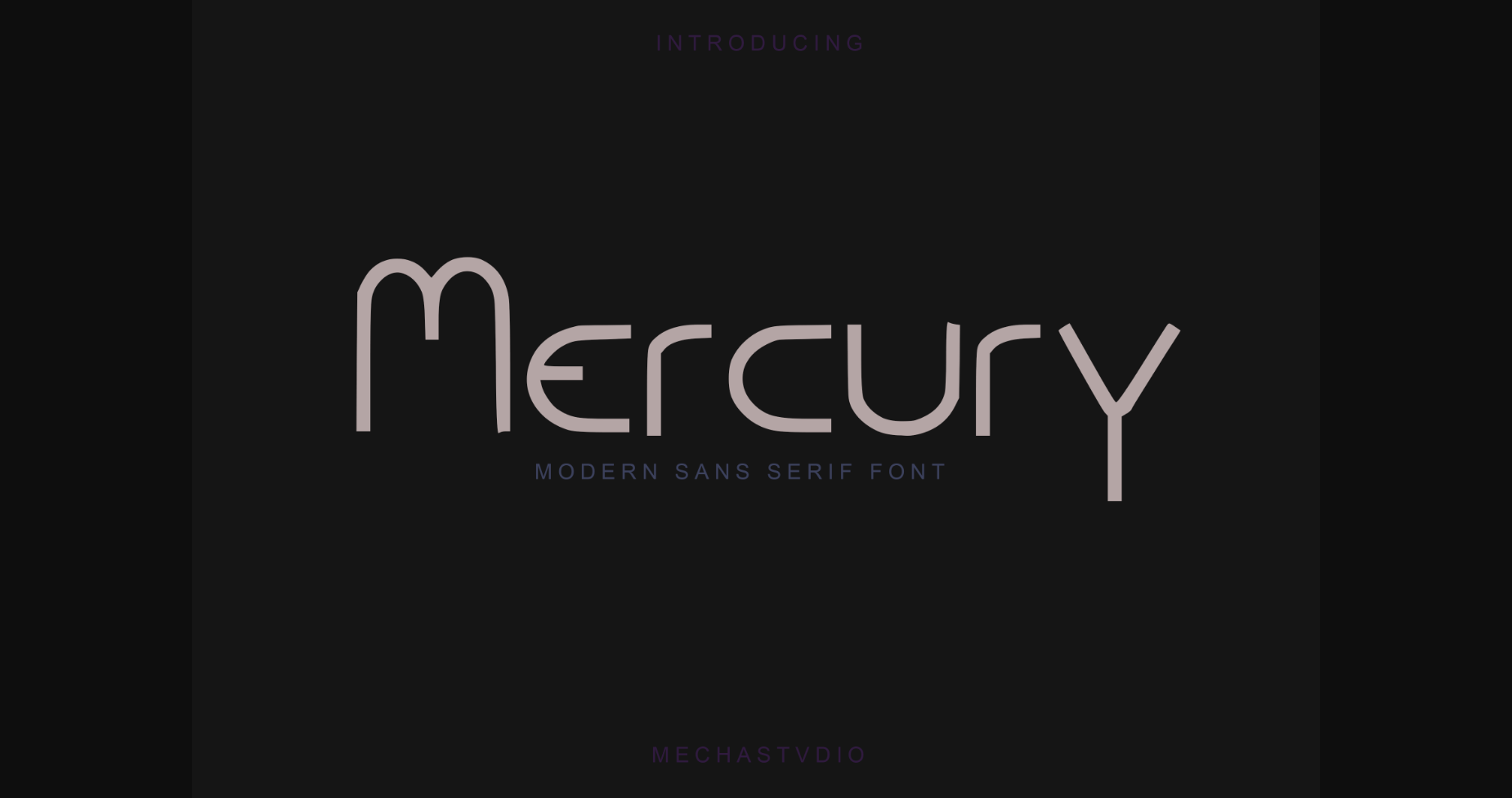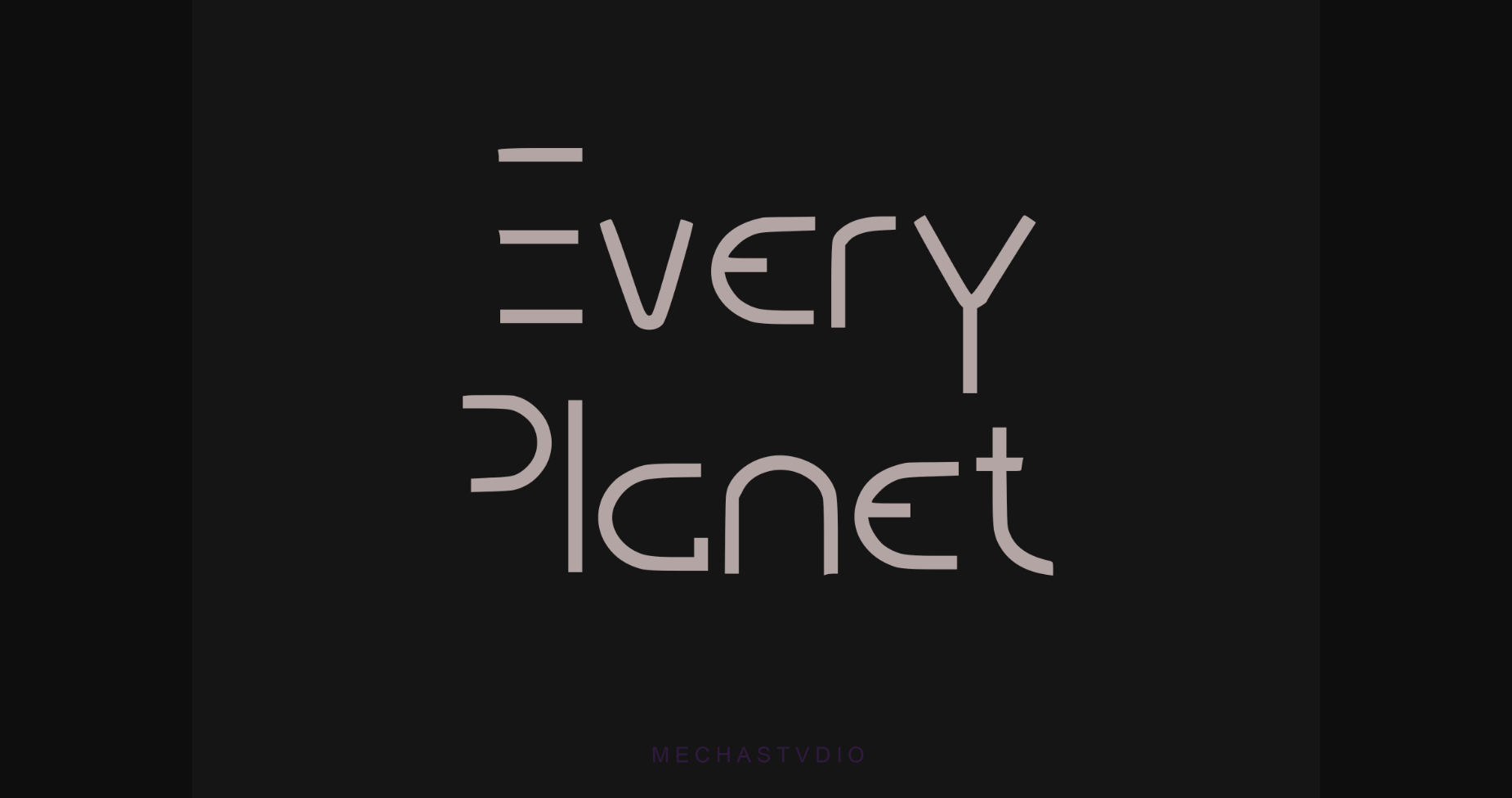
Sans Serif Fonts Mercury Font 0 171 FacebookTwitterPinterestWhatsApp 1 of 4 ... Mercury Font Poster 2... Mercury Font Poster 3... Mercury Font Poster 4... About Mercury Font Mercury is a modern, clean, and simple sans serif font. Its unique style is perfect for all your projects as it has the potential to transform them into a true standout. DOWNLOAD NOW